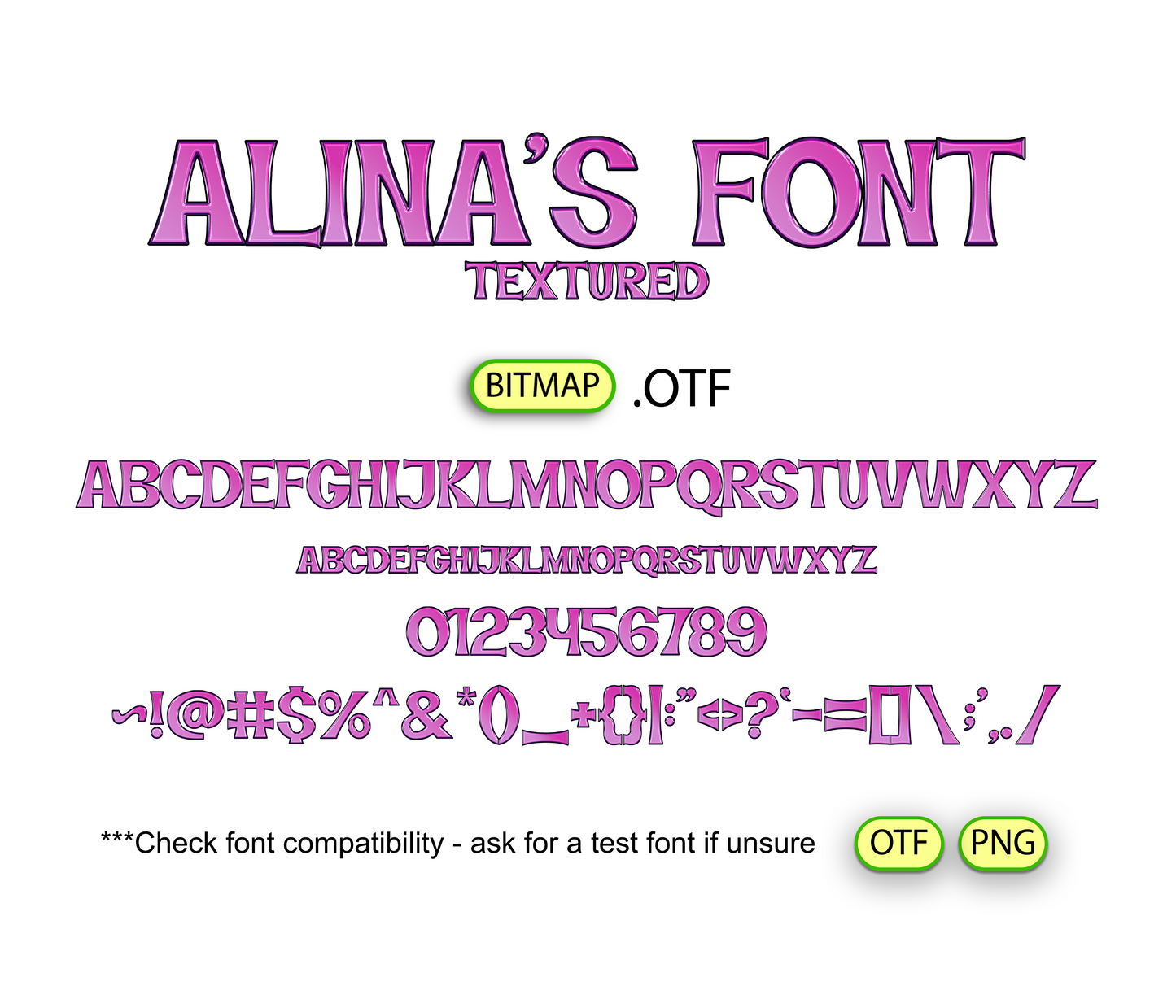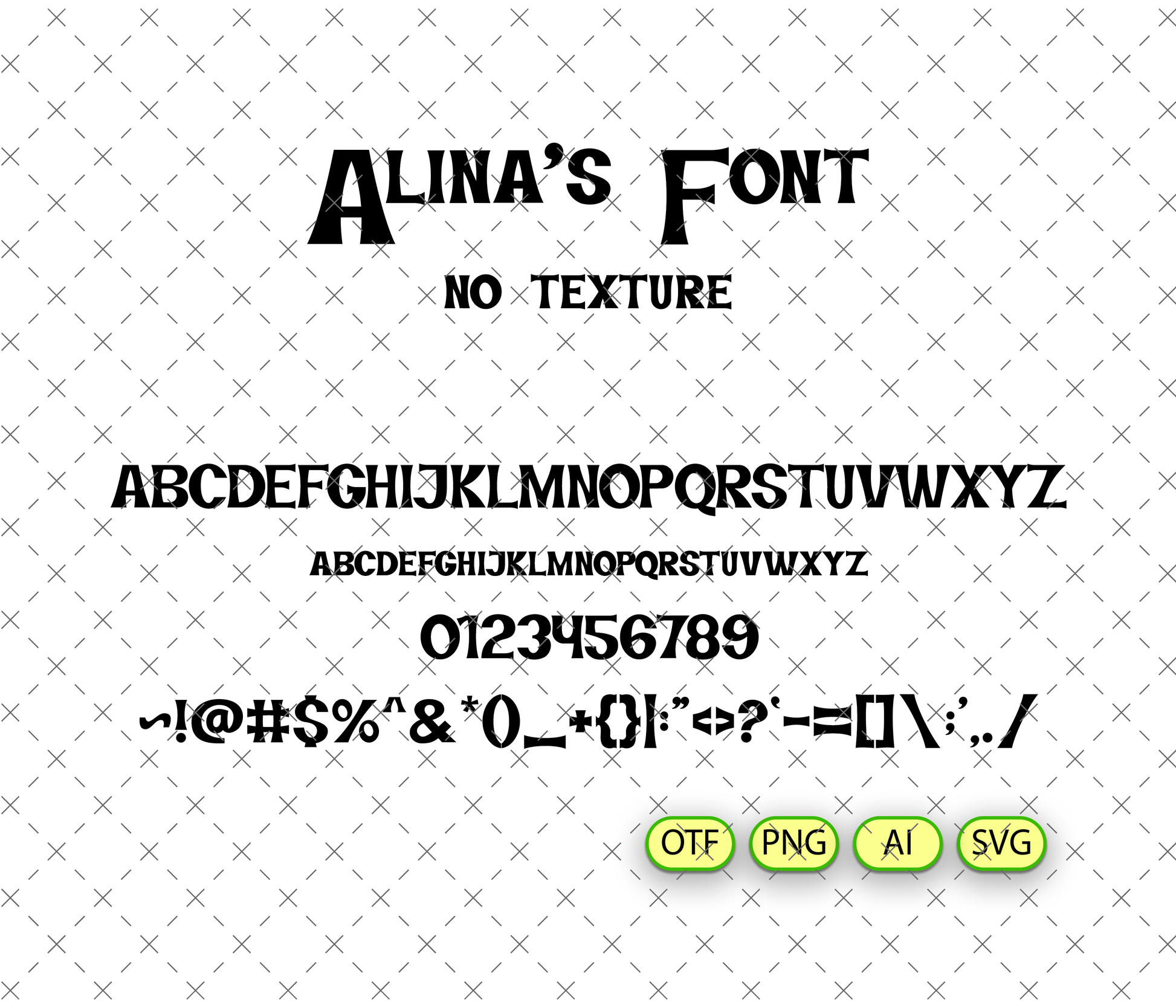
Pop Star Forever Font Textured
Dive headfirst into the glittering universe of retro teen pop legend with our Pop Star Forever Font Textured, wrapping the timeless spirit of classic music idol fantasy and backstage superstar glamour in rich, tactile textures bursting with nostalgic color. Crafted for pop culture devotees, themed event creators, merchandise designers, and creative visionaries, this font captures the legendary spark of vintage teenage entertainment and channels it straight into your most ambitious projects. From dazzling party materials to collector-worthy merchandise, every letter tells a story of stardom, sequins, and unforgettable pop magic.
Legendary Retro Typography for Pop Culture, Fan Merch & Entertainment Design
Our Pop Star Forever Font Textured showcases bold, character-rich letterforms draped in vivid retro textures, drawing deep inspiration from the iconic world of teenage music royalty, glittering stage performances, and the era-defining charm of classic pop idol storytelling. Every character radiates the warmth and nostalgia of a generation raised on secret superstar dreams. Ideal for:
- Event Promotions: Design jaw-dropping invitations, statement banners, and themed event posters for retro pop legend birthday parties, music nostalgia nights, fan tribute gatherings, and glamorous teen entertainment celebrations that pulse with the legendary energy of classic idol stardom
- Merchandise Design: A perfect creative companion for bold graphic tees, collector wall art, vibrant sticker collections, fan tote bags, and lifestyle accessories that capture the iconic textured aesthetic of vintage teen pop culture and music superstar fashion
- Digital Media: Transform your social media presence, fan platforms, and creative portfolios with richly textured retro headers and eye-catching graphic compositions that radiate the undying electricity of classic teenage pop entertainment nostalgia
- Creative Content: Breathe legendary star power into fan artwork, nostalgic character illustrations, tribute design collections, and storytelling projects rooted in the timeless world of double-life pop fantasy and music idol adventure narratives
- Personal Projects: Weave iconic retro glamour into handmade fan keepsakes, scrapbook masterpieces, DIY home accents, and craft collections lovingly inspired by the everlasting cultural magic of legendary teenage music superstar aesthetics
Whether you are assembling fan-inspired product lines, building nostalgia-soaked event experiences, or giving your personal creative work the legendary retro pop treatment it truly deserves, this font delivers the bold texture, iconic energy, and timeless glamour that transforms ordinary designs into unforgettable creative statements. Ready to make every letter legendary? Grab this font and let the era live on.